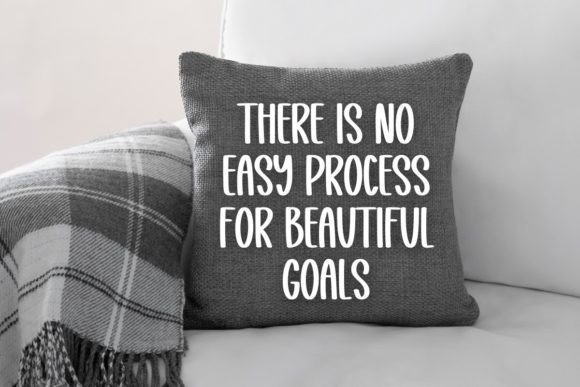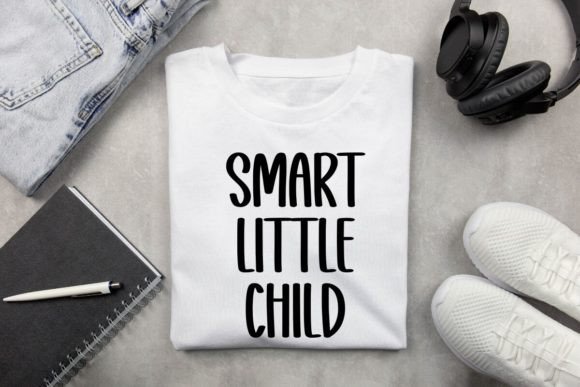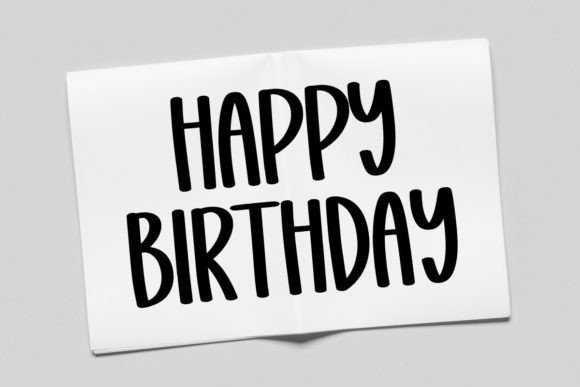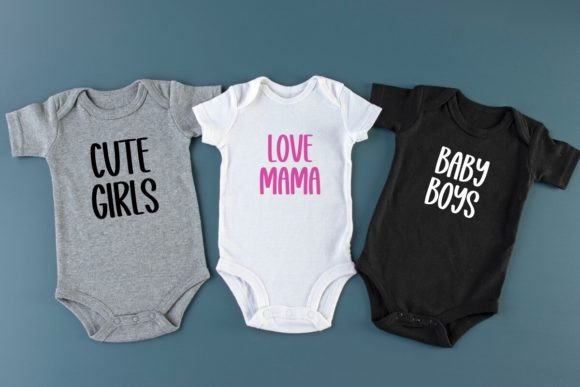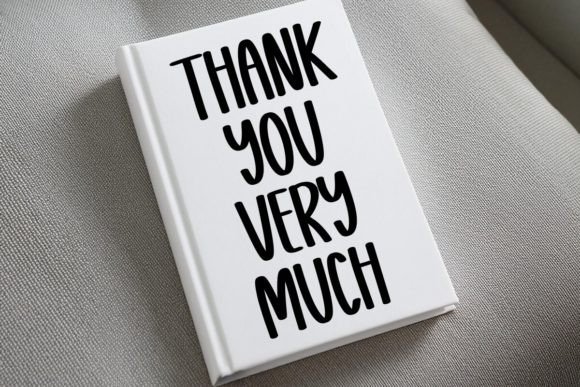
Designing with Clarity: The Magic of Hello Unicorn Font
Have you ever stared at a blank canvas, your mind racing with ideas, yet unable to translate them into visual reality? That’s a familiar feeling for many creatives. It’s the moment when inspiration strikes, but the right tools to bring it to life are nowhere to be found. For designers, finding the perfect font can be the key to unlocking that creative spark. Enter Hello Unicorn Font, a clean and casual sans-serif font designed to make your designs shine.
With its simplicity and modern appeal, Hello Unicorn Font is the perfect choice for designers seeking clarity and readability in their projects. From digital interfaces to print materials, this versatile font adapts seamlessly to various design contexts. Its balanced proportions and clean lines make it a valuable asset for any designer looking to elevate their work.
Hello Unicorn Font Key Features
- Unique Characteristics: The Hello Unicorn Font features a whimsical and playful design, with intricate details and a touch of magic, making it perfect for adding a touch of fantasy to your designs.
Hello Unicorn Font Review
Overall, I think the Hello Unicorn Font is a fun and whimsical addition to any design project. ✨ It’s perfect for creating a magical atmosphere, especially for children’s books, greeting cards, and other playful designs. The font is highly customizable, allowing you to adjust the size, color, and even add some sparkle effects to make it stand out.
The font comes in a variety of weights and styles, making it suitable for both headings and body text. ✨ It’s also highly legible, even at small sizes, which is a must-have for any font.
While the Hello Unicorn Font is a great addition to any design project, there are a few limitations to consider.
- ⚠️ Limited to a single font style: While the font comes in different weights and styles, it’s limited to a single font family. This may not be suitable for projects that require multiple font styles.
- ⚠️ Not suitable for formal designs: Due to its playful nature, the Hello Unicorn Font may not be suitable for formal designs, such as business reports or technical documents.
The Hello Unicorn Font is a great addition to any design project that requires a touch of magic and whimsy. While it has some limitations, it’s a highly customizable and legible font that’s perfect for creating a playful atmosphere. I would definitely recommend it for designers looking to add a bit of sparkle to their designs.
For best results, use the font in a bold or italic style to enhance the magical feel.
Use the font in combination with sparkles, glitter, and pastel colors to create a whimsical look.
Use the font in conjunction with cute graphics and animations to create an engaging presentation.
Use Hello Unicorn Font for:
- Magical and whimsical designs.
- Cute and playful social media graphics.
For best results, combine the font with sparkles, glitter, and pastel colors to create a cohesive and magical look.